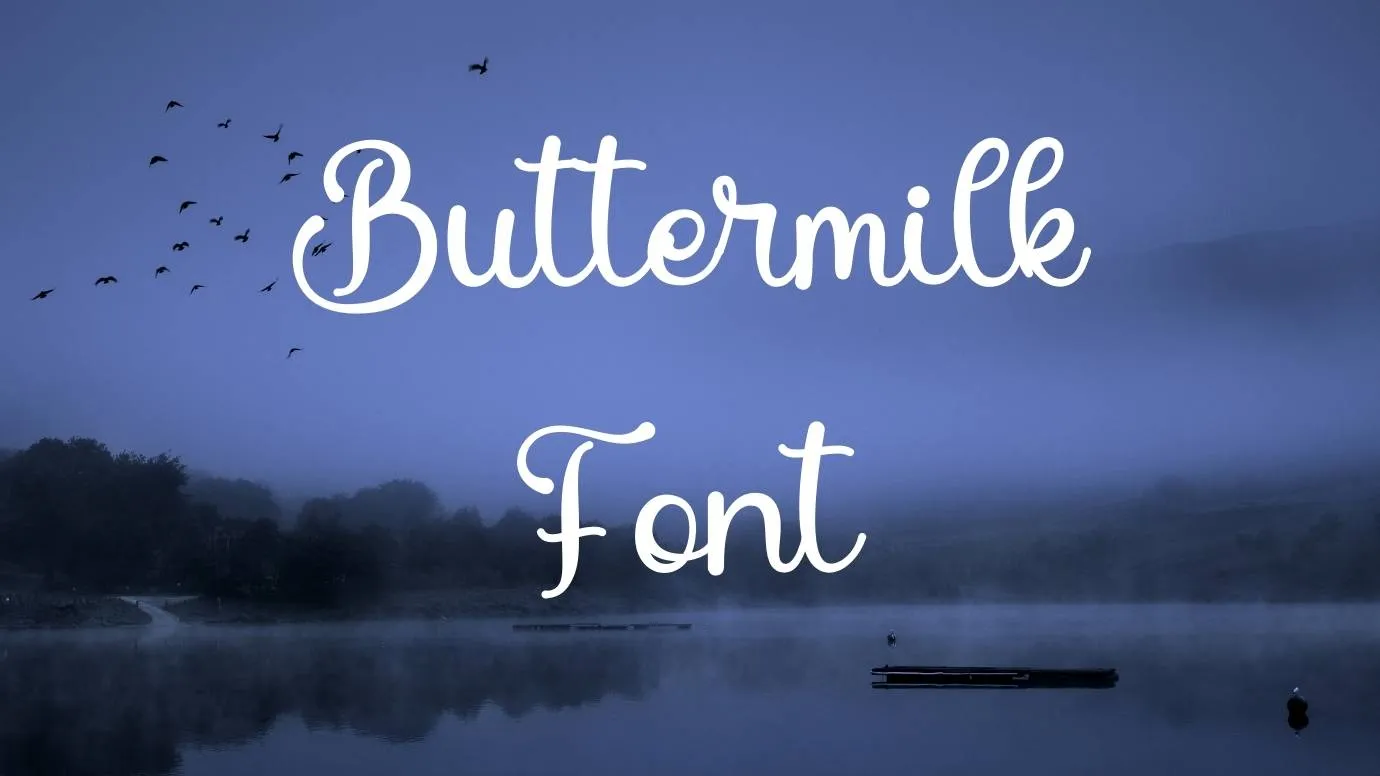
Buttermilk Font Family is a modern script font that has very elegant look characters. This script font was designed by Gurita Type. This typeface has bold corners and cursive characters that have small and beautiful swashes.
Buttermilk Font